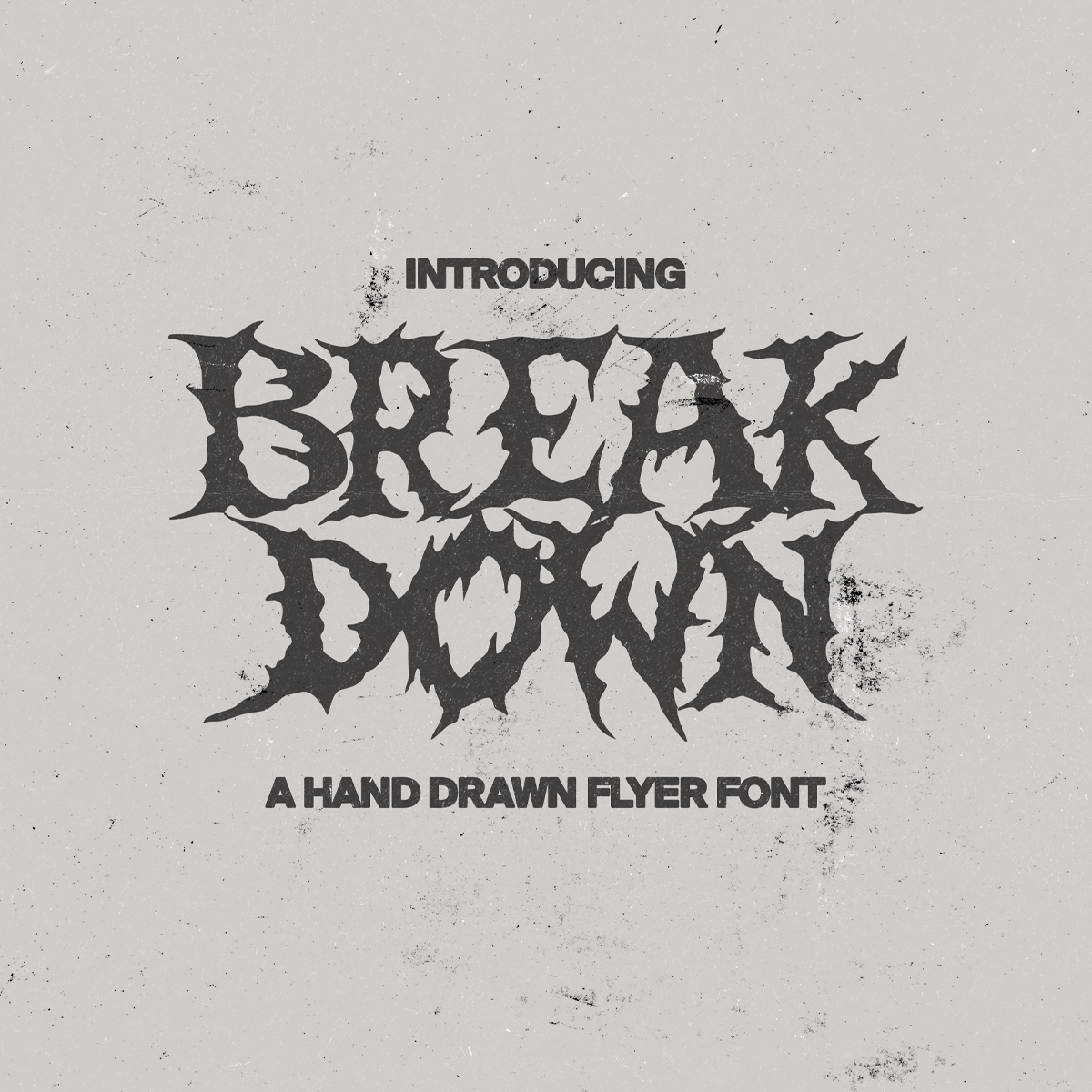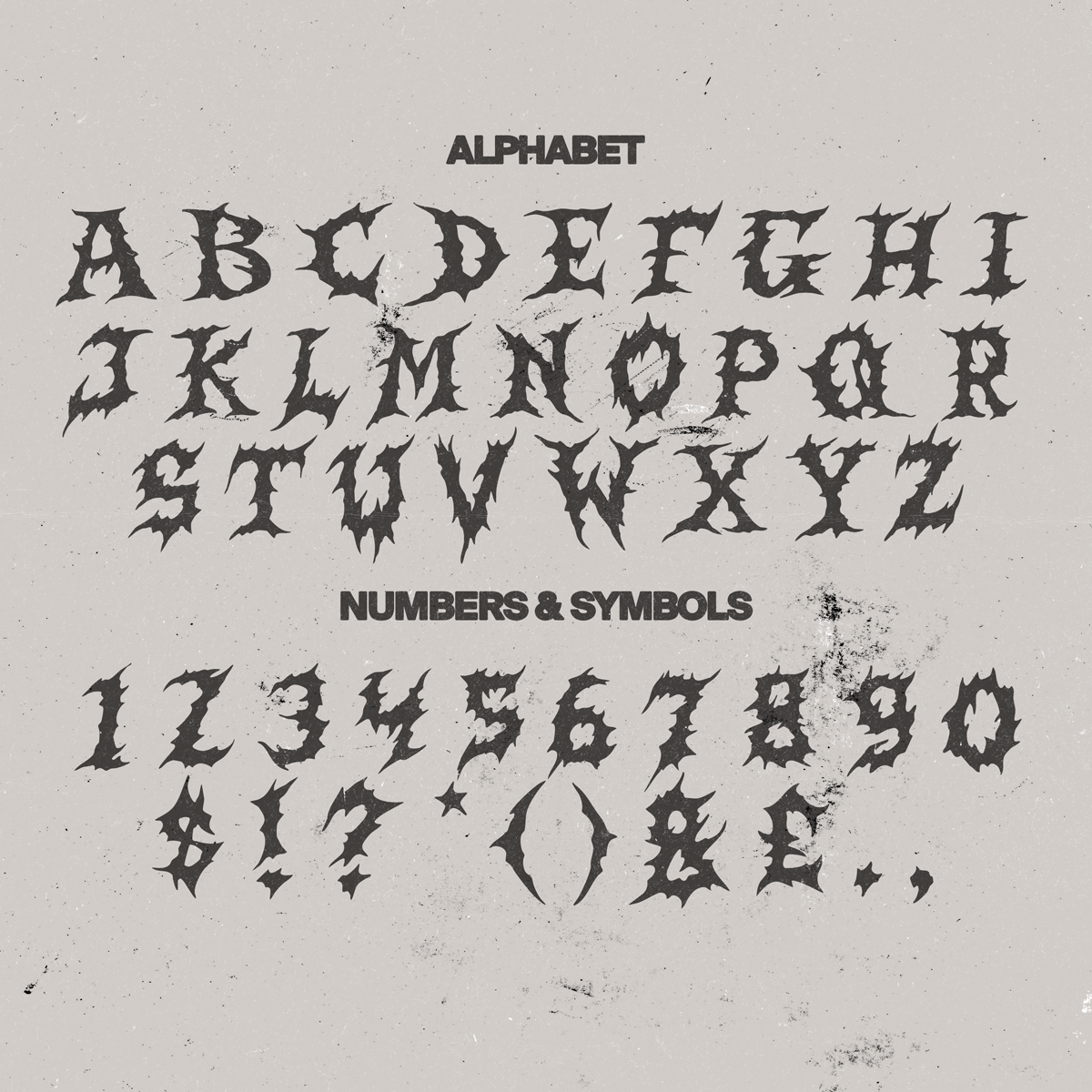
Breakdown Font
Breakdown is one of my "Flyer Fonts" series. A hand drawn font inspired by old school hardcore gig flyers.
Full Alphabet (Uppercase only)
Numbers and select limited symbols